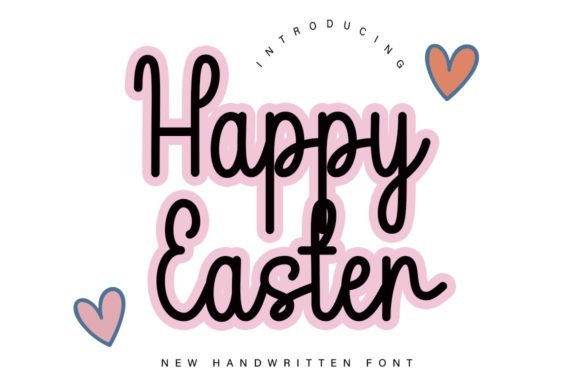
Bring Joy to Your Designs with the Happy Easter Font
Remember that moment when you finally landed on the perfect font for your Easter-themed project? The one that made all the difference between a good design and a great one? For many of us, that moment is a sweet memory that we cherish. And it’s moments like those that make us realize the power of the right font.
That’s where the Happy Easter Font comes in – a dazzling script font that’s sure to bring a smile to your face and a touch of elegance to your creations. Whether you’re working on a project that’s related to Easter or not, this font is a wonderful asset to have in your library. With its neat craftsmanship and high level of detail, it has the potential to enhance any design and make it truly special.
Key Features of “Happy Easter Font”
- Font Family: A custom-designed font family specifically created for Easter celebrations, with a playful and festive tone.
- Unique Characteristics: Features Easter-themed icons and graphics, such as eggs, bunnies, and flowers, to add a festive touch to designs.
- Font Styles: Includes bold, italic, and regular font styles to provide versatility and creativity in design applications.
- Unicode Support: Compatible with a wide range of languages, including Latin, Cyrillic, and Greek alphabets.
Designer Review: Happy Easter Font
Overall, I’d say the Happy Easter Font is a cute and cheerful choice for spring-themed designs. ✨ The rounded edges and pastel colors give it a playful feel that’s perfect for Easter-themed materials, like invitations, decorations, and even some greeting cards. ✨ The font is also quite versatile and can be used in various contexts, from digital to print.
However, there are a few limitations to consider: ⚠️ the font may not be as effective in certain color combinations, especially those with bright or bold colors. This could make the font get lost or appear too bland. ⚠️ Additionally, the font’s rounded edges might make it difficult to read at smaller font sizes. ⚠️
In terms of customization, the Happy Easter Font is relatively basic, which might be a drawback for some designers. It doesn’t have a wide range of styles or variations, so you’re mostly limited to the standard font you download. That being said, the font’s simplicity can also be an advantage, as it makes it easy to integrate into your design.
- Cute and cheerful design
- Rounded edges and pastel colors
- Versatile for digital and print use
- May not be effective in certain color combinations
- Can be difficult to read at smaller font sizes
To get the most out of the Happy Easter font, consider the following tips:
- Use the font in conjunction with other spring-themed elements, such as flowers or eggs.
- Experiment with different font sizes and colors to create a visually appealing design.
- Consider pairing the font with a bold or cursive font for added visual interest.
The Happy Easter font is commonly used for:
- Easter card designs and invitations.
- Spring-themed social media posts and graphics.
- Children’s party decorations and materials. Alternatives to Happy Easter Font